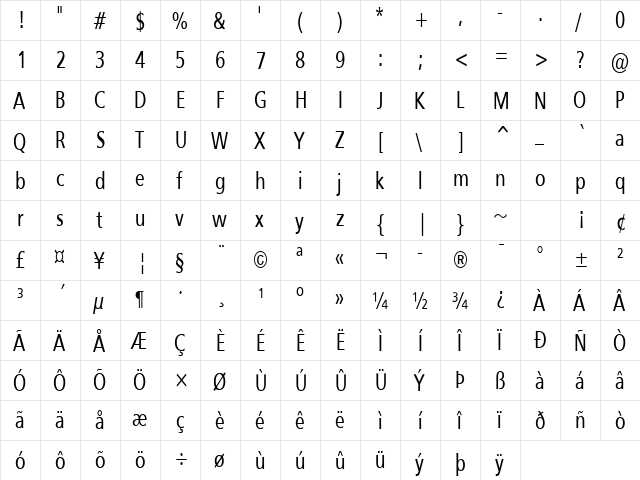
Gilliam 2 Normal
Design Context for Gilliam 2 Typeface
Gilliam 2 takes a measured approach to typography — its balanced proportions and neutral character make it a reliable workhorse for both digital and print work.
Pro Tip: Use Gilliam 2 in both headline and body roles to test its range before committing to a single application.